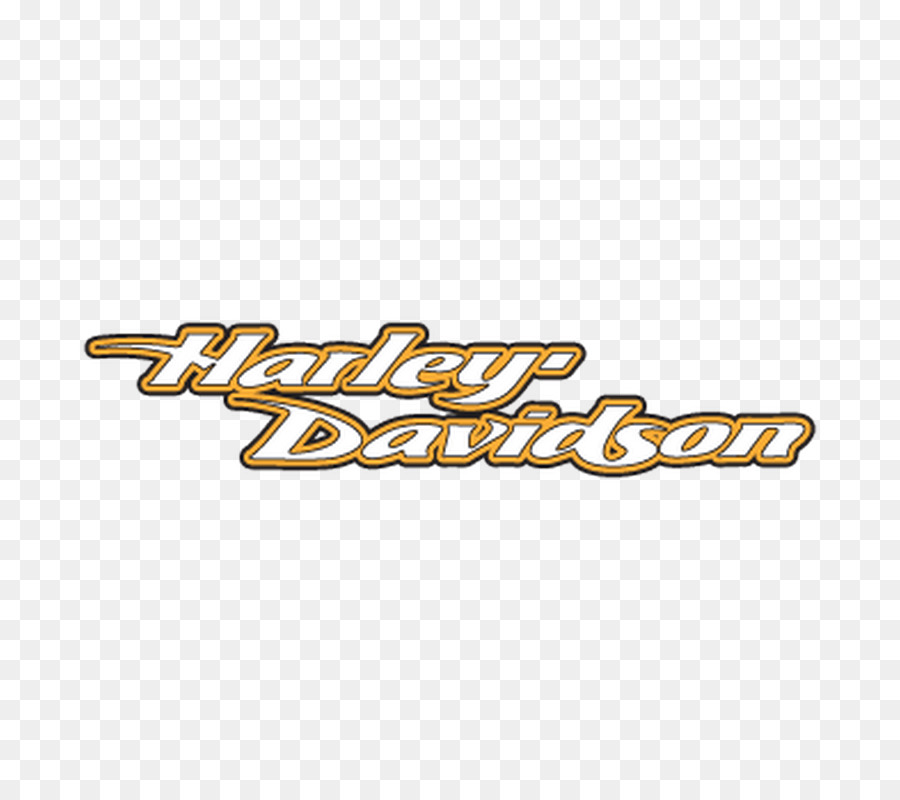
The Font Looks Like Helvetica Font Which Can Be Use In Designinig Vector Graphic Designs And Other Related.
Harley davidson font free download. Scalable vector graphic designs and images with unlimited reserve access for cutting projects. Hi, looking to identify this font used by harley davidson motorcycles, want to have my tank repainted and this is the script i want, from other harley bikes i have seen.